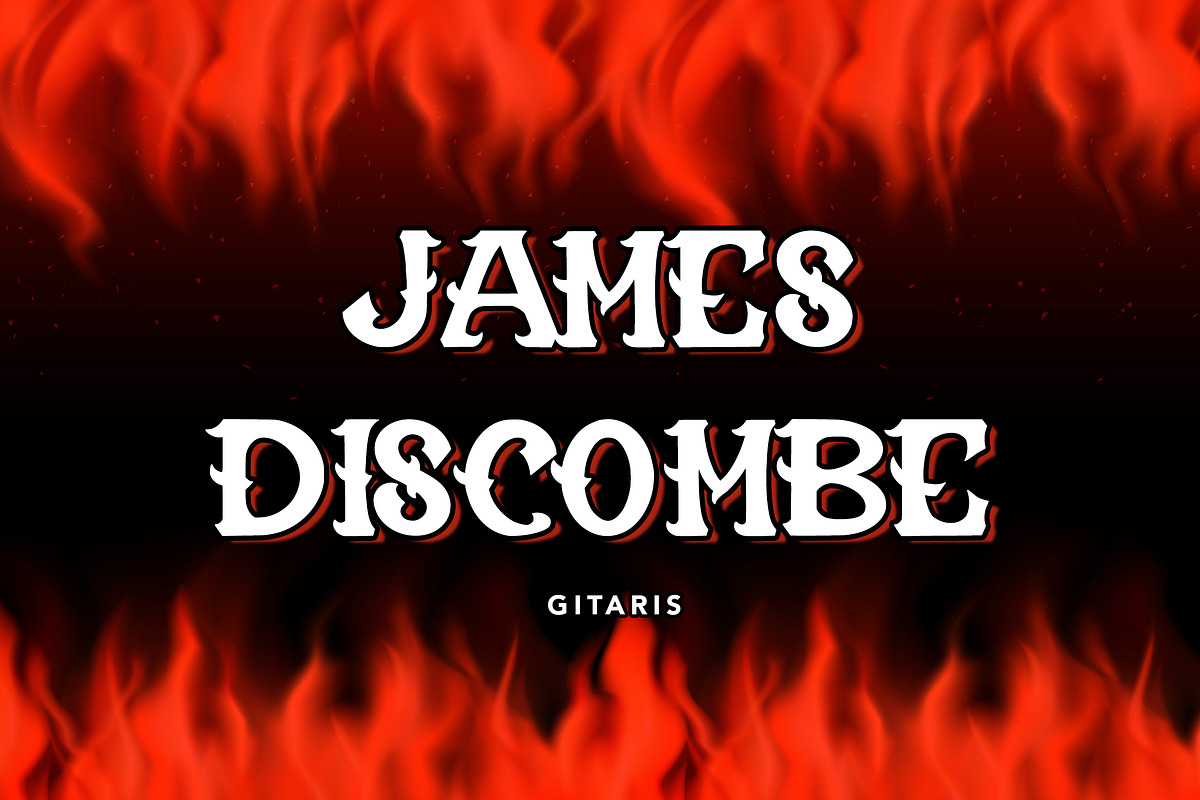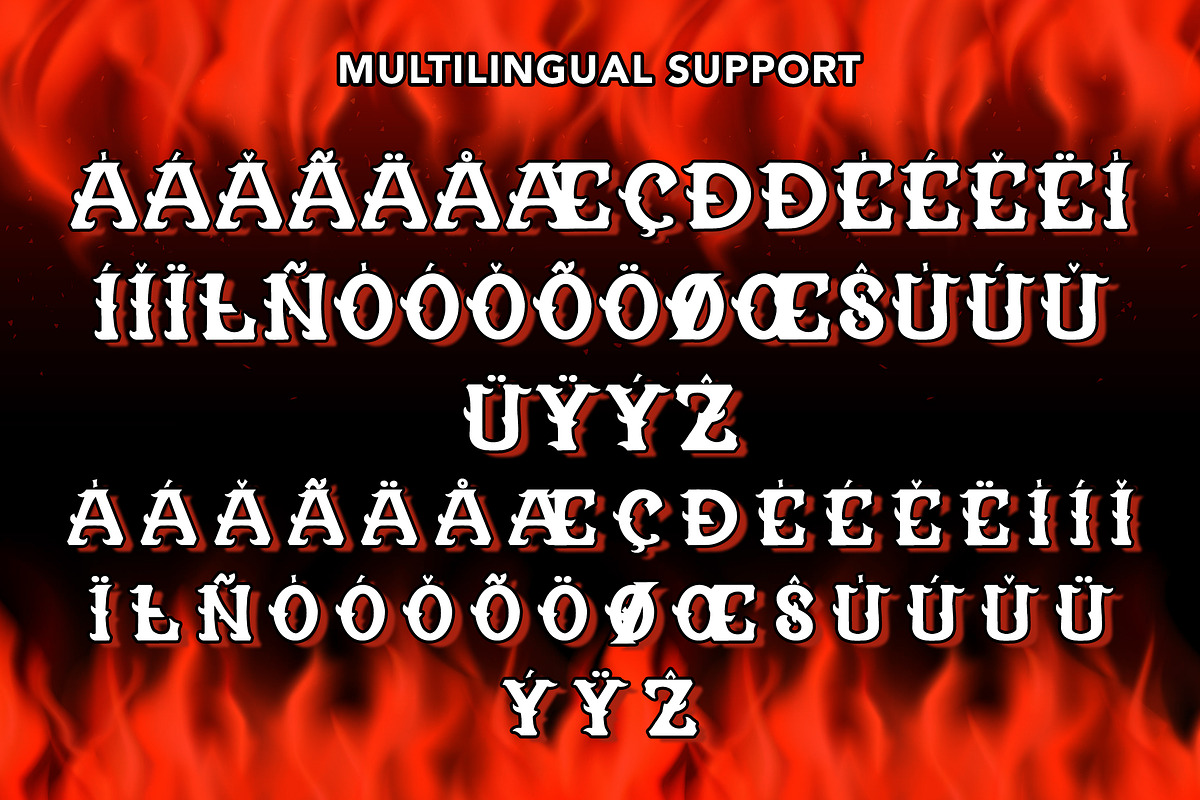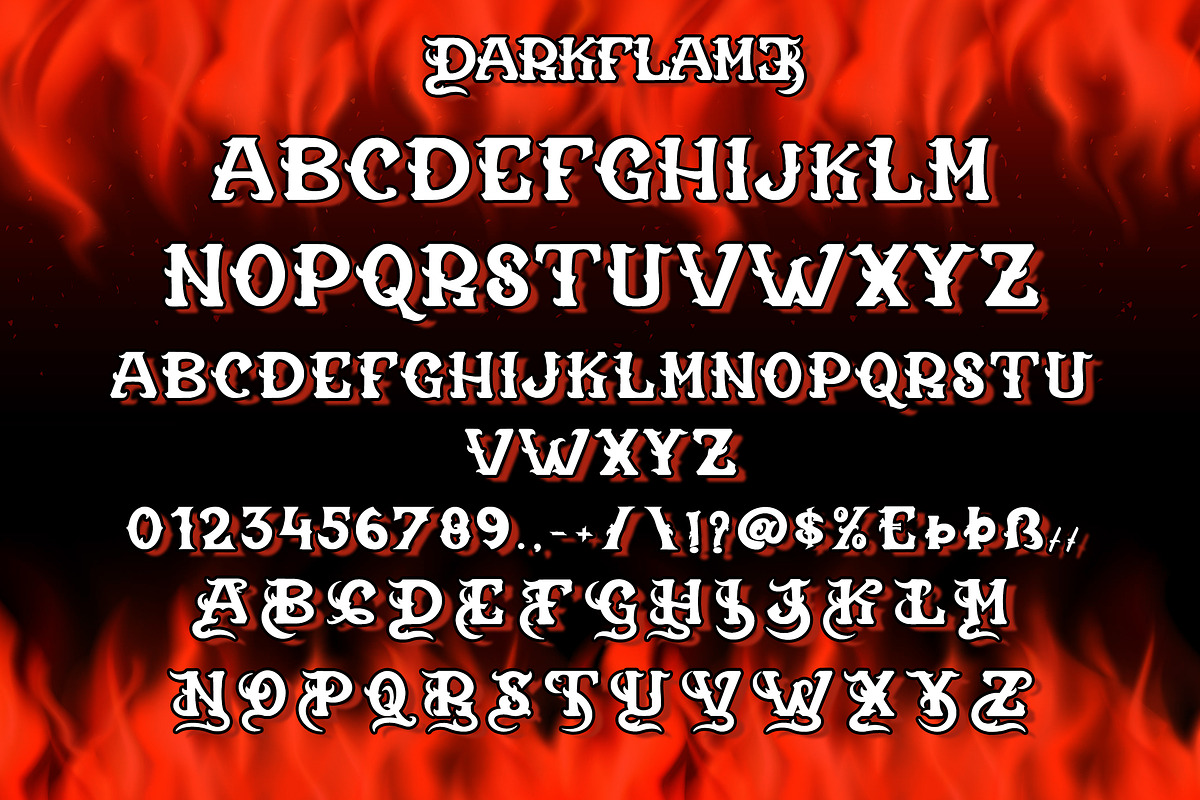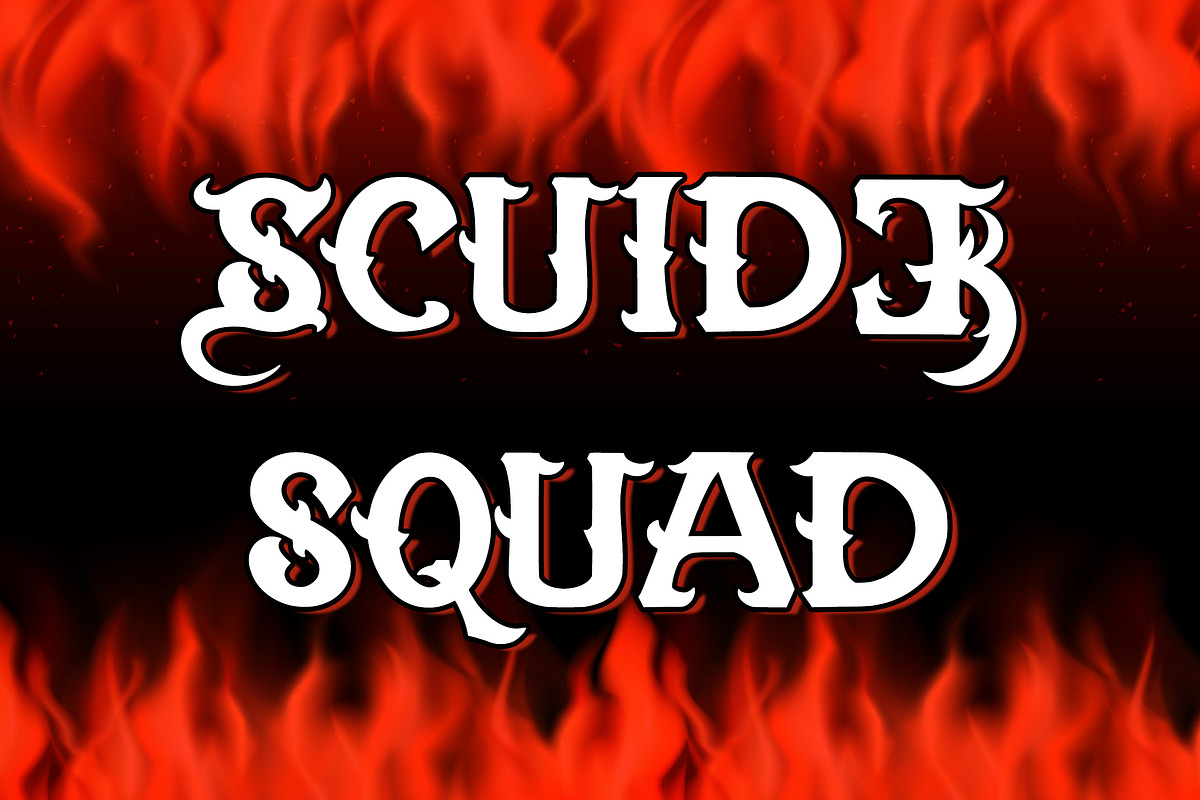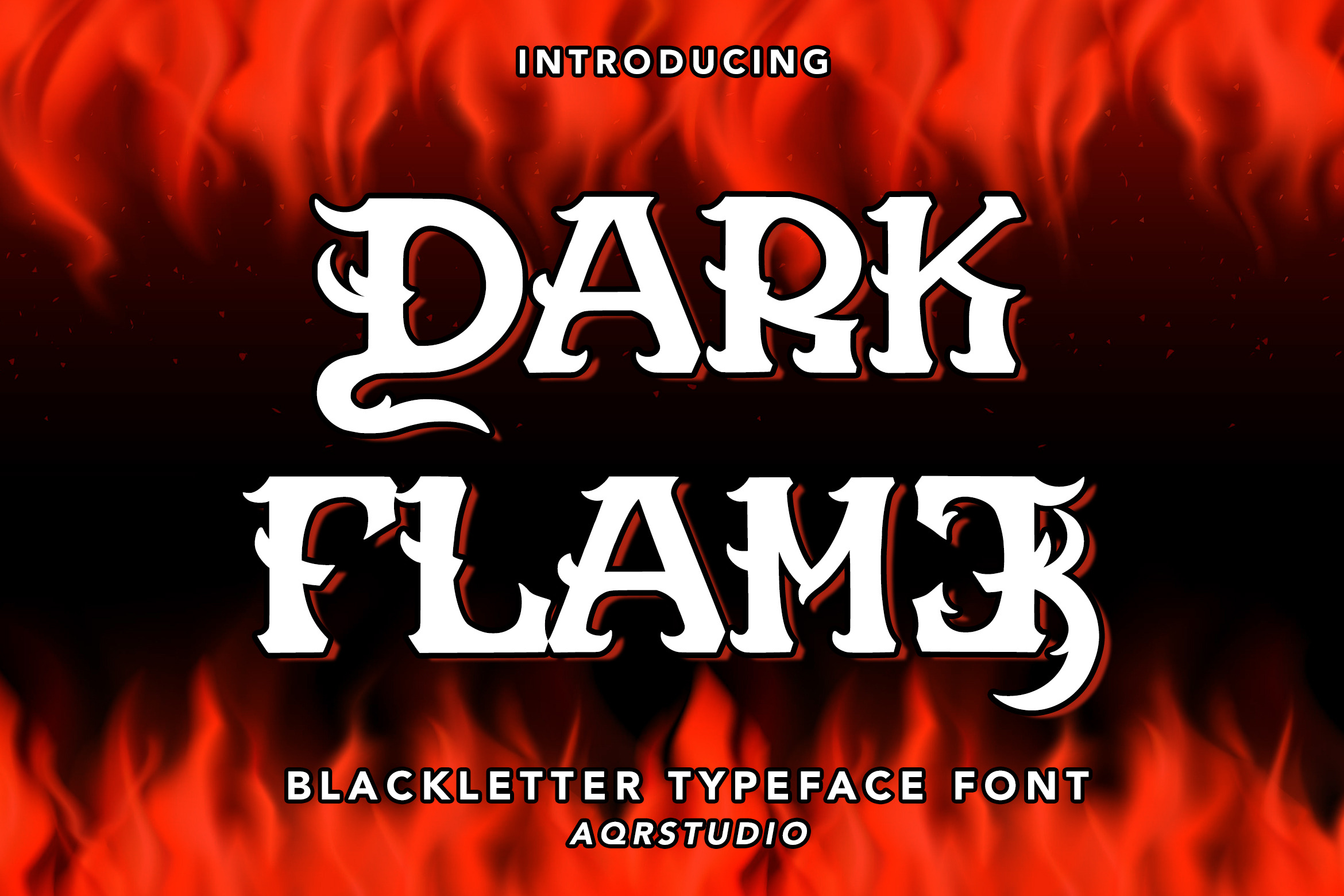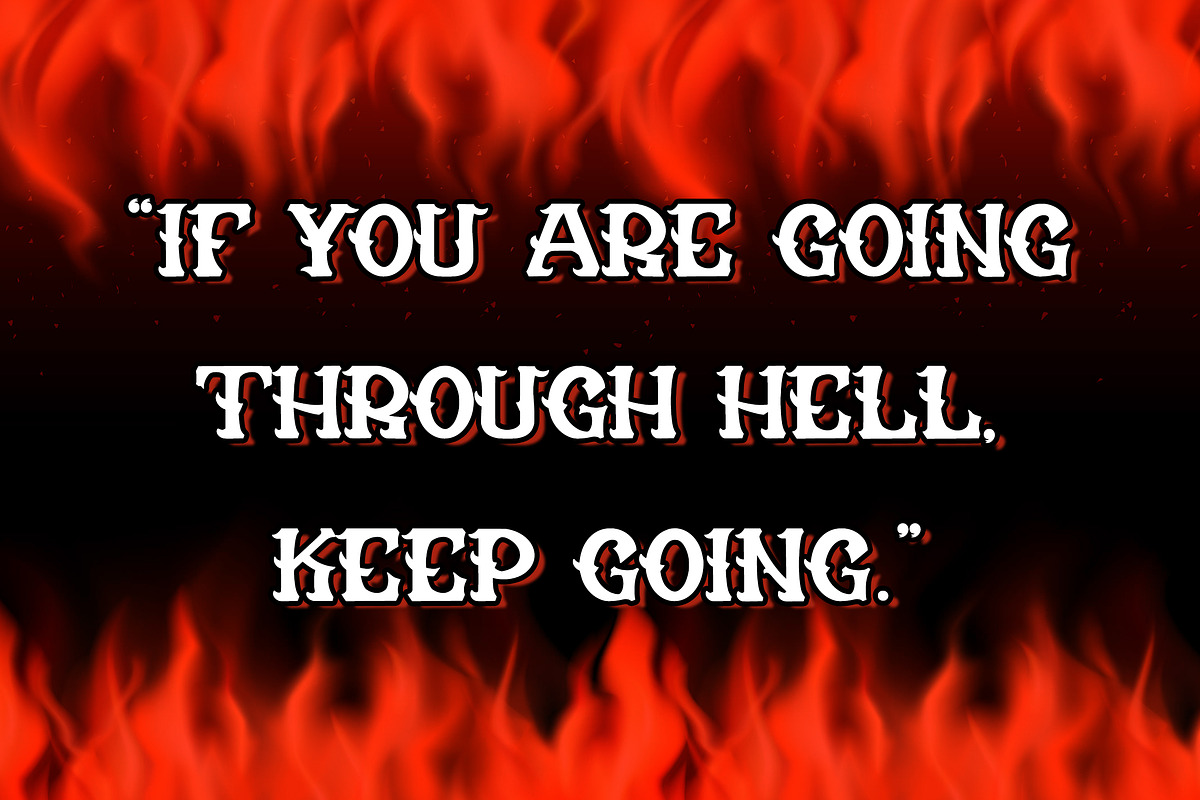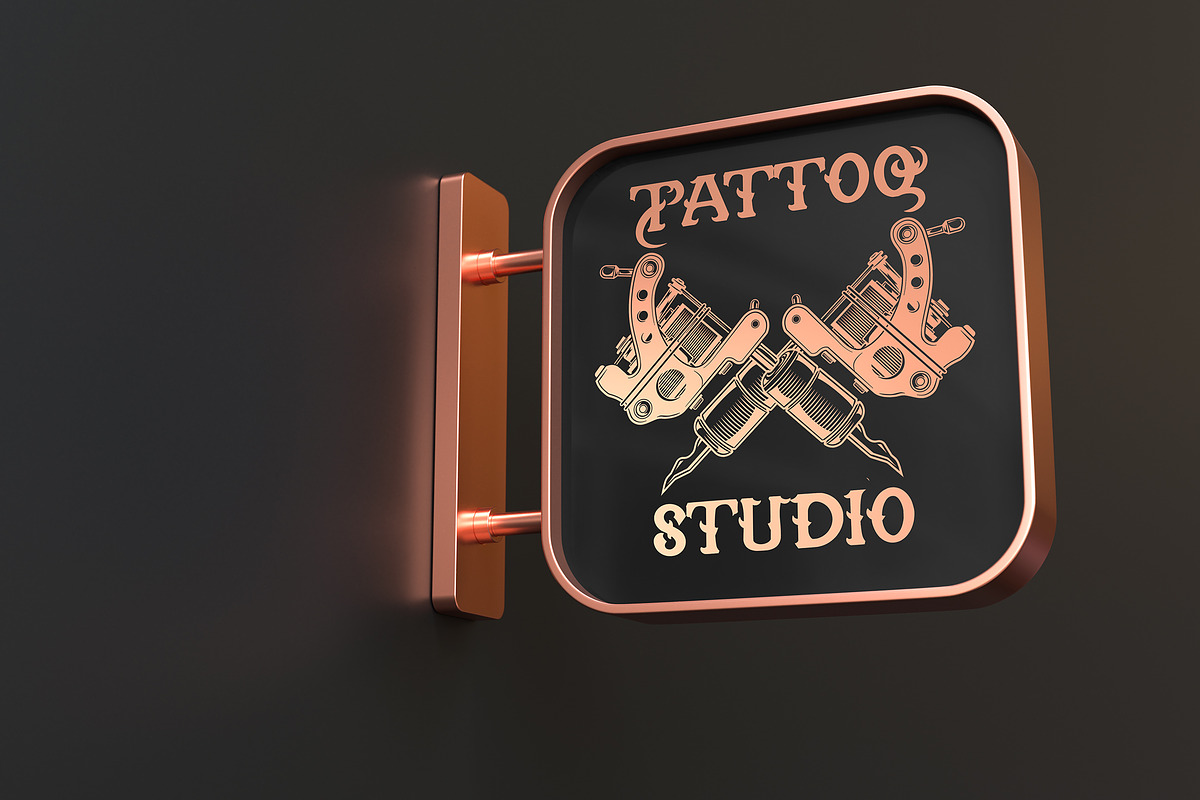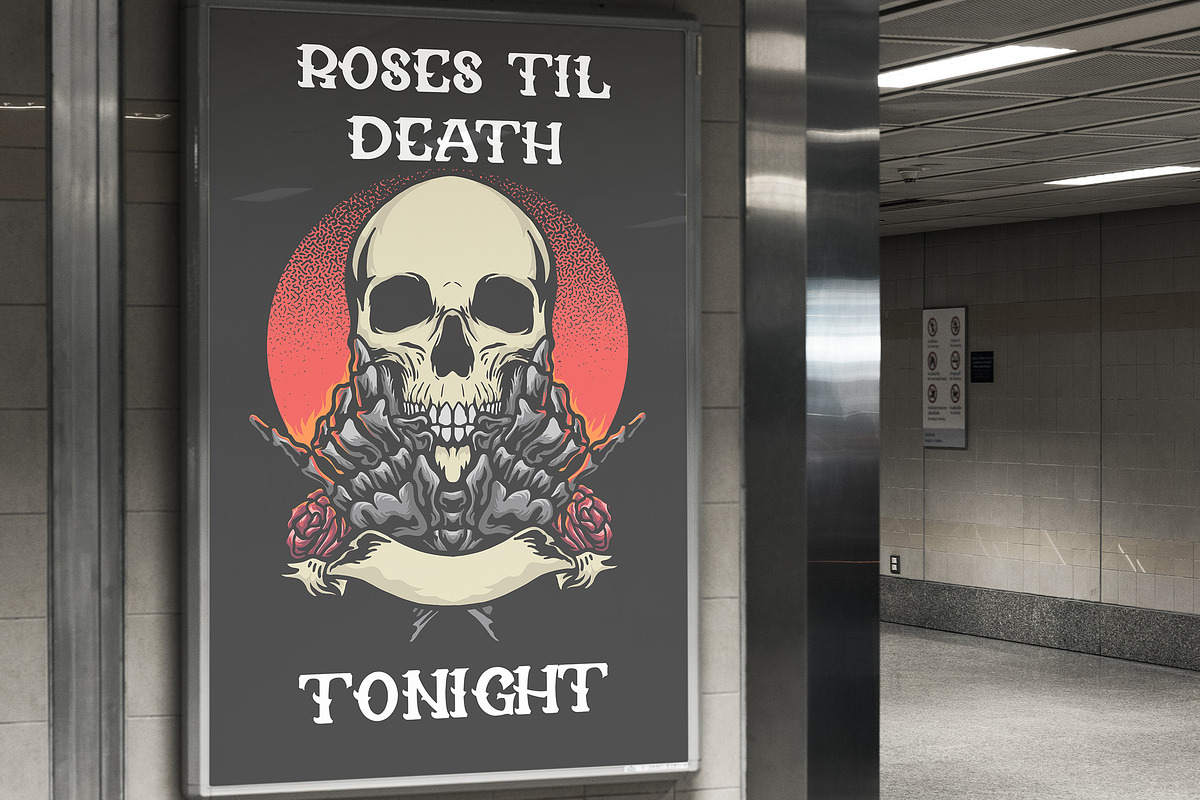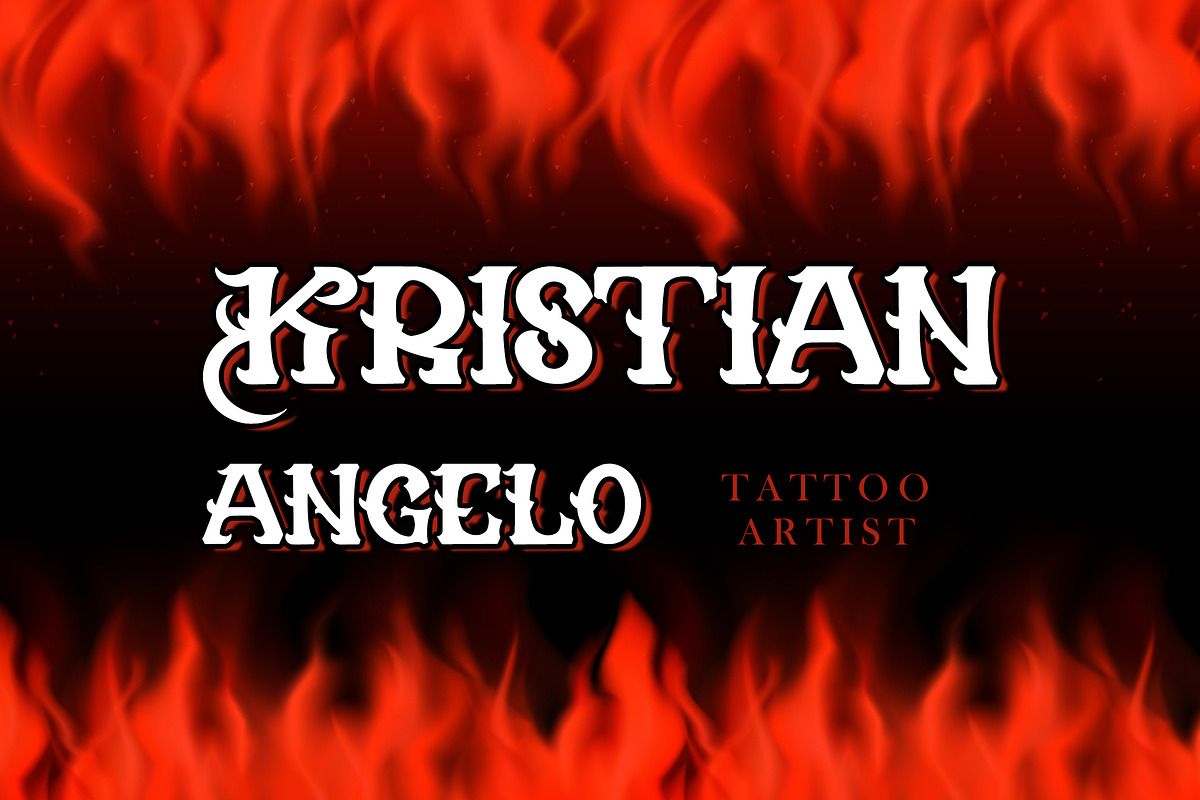
Dark Flame - Blackletter Font
Dark Flame - Blackletter Font contains a lowercase, uppercase, symbol, and also supports multi-language. There’s a lot of ligature in this font. Dark Flame - Blackletter Font also comes with ligatures, stylistic alternates and many more. this font suitable for fashion, branding, catalog and other design that you want.